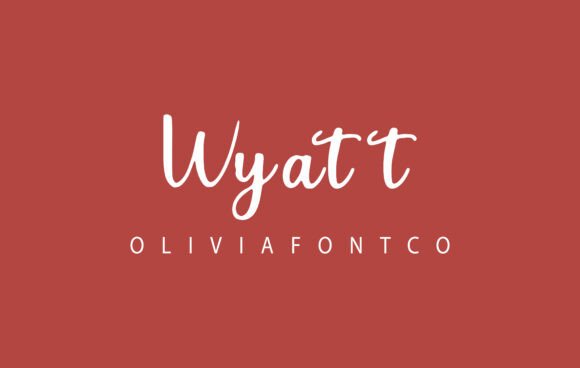
Wyatt Font: The Ultimate Handwritten Font for Creative Expression
Are you looking for a font that can add a touch of romance and elegance to your creative projects? Look no further than the Wyatt Font. This authentic handwritten font is expertly designed to capture the essence of traditional handwriting, making it perfect for a wide range of applications, from magazine headlines to wedding invitations.
What Makes Wyatt Font So Special?
Wyatt Font is more than just a font – it’s an experience. With its romantic touch and authentic handwritten feel, this font has the potential to take your creative ideas to the highest level. Whether you’re a designer, artist, or simply someone who appreciates beautiful typography, Wyatt Font is sure to become a true favorite.
Key Features of Wyatt Font
- Legibility: One of the standout features of Wyatt Font is its exceptional legibility. Whether you’re using it as a title or body text, this font is easy to read and understand, making it perfect for a wide range of applications.
- Romantic Touch: Wyatt Font has a unique romantic touch that sets it apart from other fonts. Its elegant strokes and flowing lines make it perfect for designs that require a touch of sophistication and elegance.
- Versatility: Wyatt Font is incredibly versatile, making it suitable for a wide range of designs, including magazine headlines, social media posts, branding, wedding invitations, cards, and more.
Uses of Wyatt Font
Wyatt Font is a highly versatile font that can be used in a variety of creative projects. Here are some ideas to get you started:
- Magazine Headlines: Use Wyatt Font to create eye-catching headlines that grab the reader’s attention.
- Social Media: Add a touch of elegance to your social media posts with Wyatt Font.
- Branding: Use Wyatt Font to create a unique and memorable brand identity.
- Wedding Invitations: Make your wedding invitations truly special with Wyatt Font.
- Cards: Use Wyatt Font to create beautiful and heartfelt cards for special occasions.
Why Choose Wyatt Font?
With so many fonts available, why choose Wyatt Font? Here are just a few reasons:
- Unique: Wyatt Font is a unique and authentic handwritten font that will set your designs apart from the crowd.
- Elegant: Wyatt Font has a touch of elegance and sophistication that makes it perfect for designs that require a high level of refinement.
- Legible: Wyatt Font is highly legible, making it perfect for body text and titles.
- Versatile: Wyatt Font can be used in a wide range of designs, from magazine headlines to wedding invitations.
Tips for Using Wyatt Font
Here are a few tips for getting the most out of Wyatt Font:
- Experiment with Sizes: Wyatt Font looks great in a variety of sizes, from small body text to large headlines.
- Play with Colors: Wyatt Font can be used with a wide range of colors, from bold and bright to subtle and muted.
- Mix and Match: Don’t be afraid to mix and match Wyatt Font with other fonts to create a unique and interesting design.
Wyatt Font is a truly exceptional handwritten font that is sure to become a favorite among designers and creatives. With its romantic touch, exceptional legibility, and versatility, this font is perfect for a wide range of applications. Whether you’re creating magazine headlines, social media posts, branding, wedding invitations, or cards, Wyatt Font is the perfect choice.
- Is Wyatt Font suitable for body text? Yes, Wyatt Font is highly legible and suitable for body text.